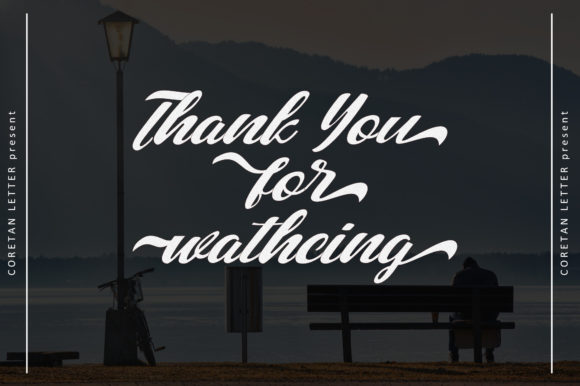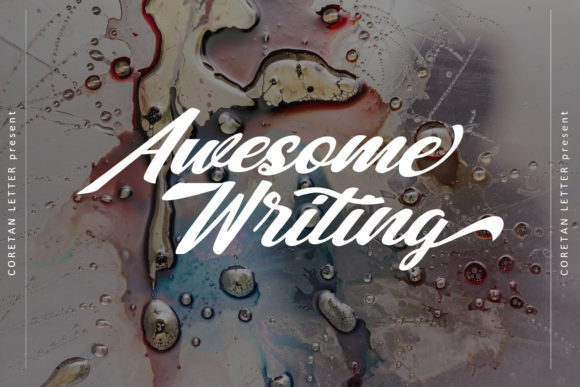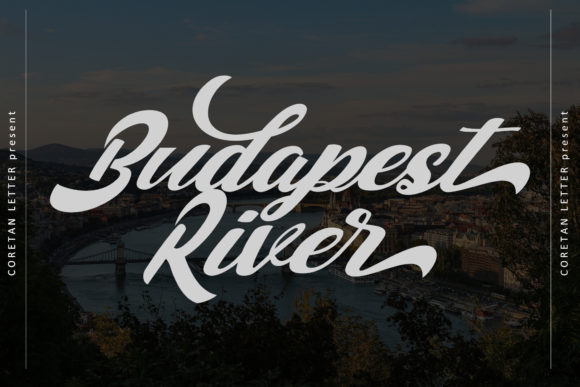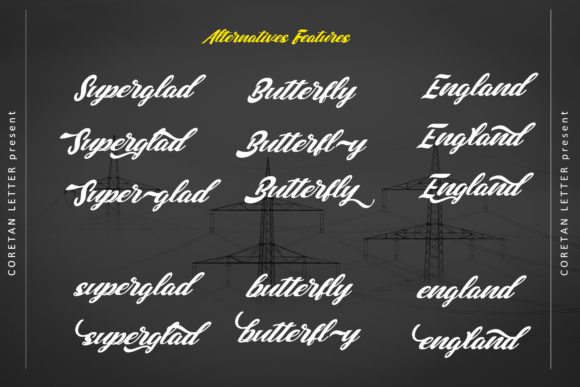
About Romagnoli Font
Romagnoli is a gorgeous and assertive handwritten font, crafted to give your headlines and logotype projects a retro touch. This font reads as strong, confident, and dynamic and can add tons of nostalgic character to your designs.